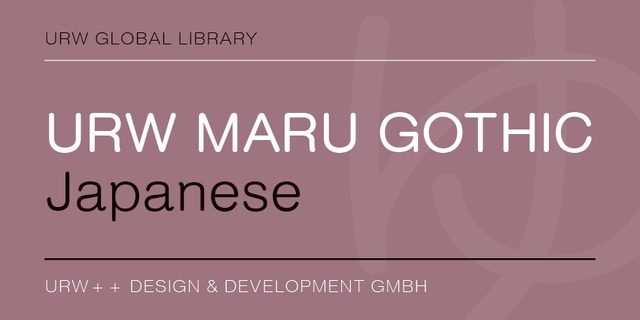
Maru Gothic Font
Maru Gothic Font is perfect for Japanese restaurant branding, anime merchandise designs, kawaii product packaging, manga publishing, Japanese cultural event posters, sushi bar signage, modern tech interfaces, minimalist app designs, contemporary art exhibitions, and zen lifestyle brands. This distinctive typeface brings Japanese aesthetic harmony to any design requiring clean, rounded elegance.
Maru Gothic Font is exciting because it embodies the Japanese design philosophy of "maru" (circle/round), creating soft, approachable letterforms that balance modern functionality with traditional Japanese aesthetics. Its gentle curves and harmonious proportions reflect the Japanese appreciation for simplicity, balance, and natural beauty.
The Maru Gothic Font family includes Light, Regular, Medium, Bold, and Heavy weights with matching obliques, plus condensed variants that maintain the characteristic rounded corners while offering flexibility for various layout requirements and space constraints in both Latin and Japanese typography applications.
Maru Gothic Font Free Download represents a masterful fusion of Japanese design principles with contemporary sans-serif functionality. This exceptional typeface has gained international recognition among designers working with Japanese brands and cultural projects for its ability to communicate both modernity and traditional Japanese values through thoughtfully crafted typography.
Design professionals appreciate Maru Gothic Font for its exceptional versatility in cross-cultural communications and its ability to create welcoming, approachable brand personalities. The font's rounded characteristics soften traditional gothic severity while maintaining excellent readability, making it ideal for brands seeking to project friendliness and accessibility without sacrificing professionalism.
The cultural authenticity of Maru Gothic Font extends beyond mere aesthetic choices, reflecting deep Japanese design traditions that prioritize harmony, balance, and user comfort. Creative teams working on Japanese cuisine, technology products, or cultural initiatives find this font particularly effective for creating authentic connections with both Japanese and international audiences.
Whether used for contemporary Japanese restaurants, tech startup branding, or cultural festival materials, Maru Gothic Font delivers the perfect synthesis of traditional Japanese aesthetics and modern functionality. Its universal appeal and cultural authenticity make it an indispensable choice for designers celebrating Japanese design excellence and cross-cultural communication.